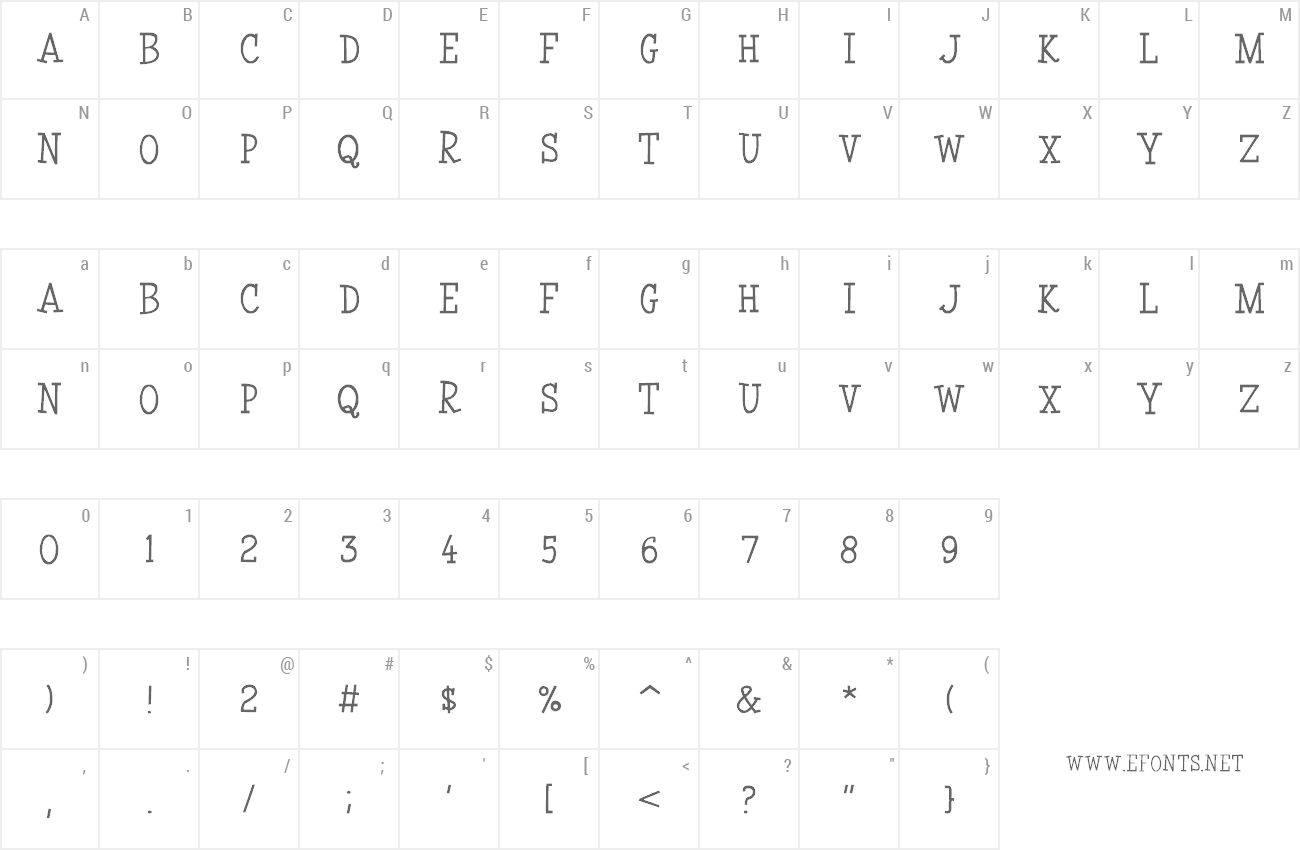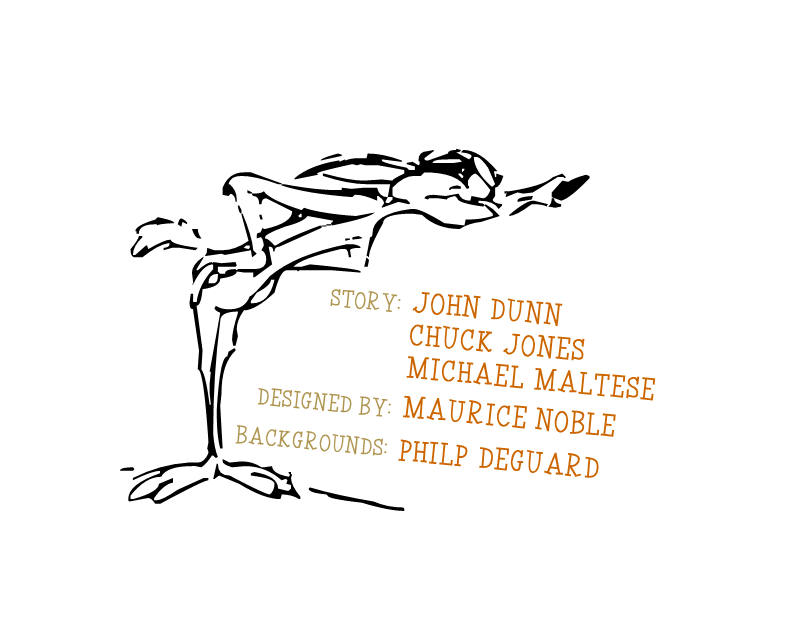
Preview and download Coyotris Serif Font. Created by Jayvee Enaguas in Fancy Cartoon styles with 100% Free license.
| Note by Jayvee Enaguas | |
| Adventures of the Road-Runner is an animated film, directed by Chuck Jones and co-directed by Maurice Noble and Tom Ray. This font has ripped by nipcen. Thanks! :) |